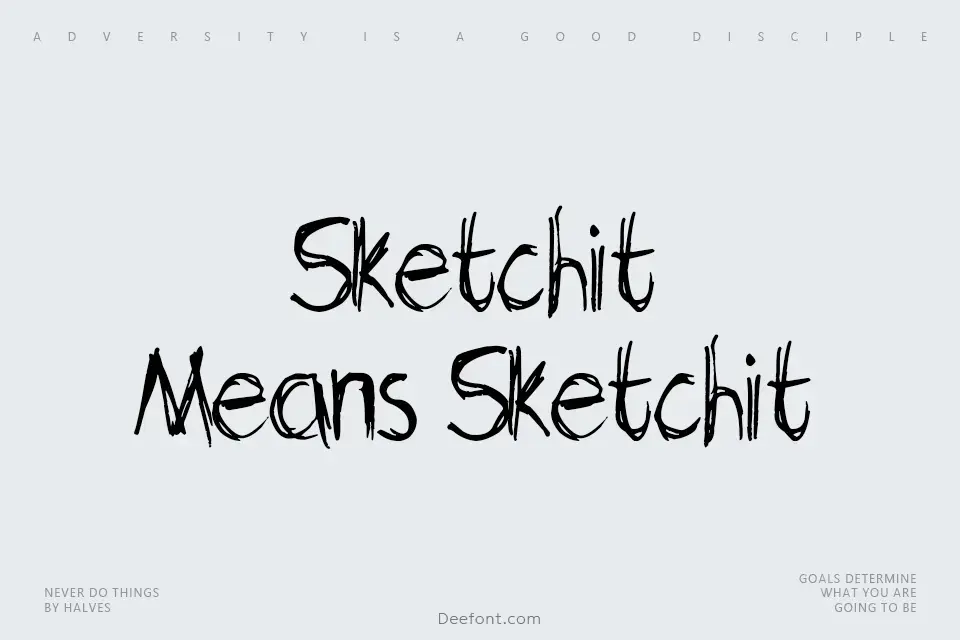
Sketchit Means Sketchit Font
Sketchit Means Sketchit is a distinctive hand-drawn display font that brings playful chaos and theatrical energy to your creative projects. With its deliberately uneven, sketch-like strokes and dramatic flourishes, this typeface excels as a title font for Halloween posters, horror movie promotions, and themed event materials. The irregular letterforms and rough aesthetic create instant visual impact, making it ideal for grabbing attention on promotional materials, event invitations, and poster designs. Perfect for designers seeking edgy, unconventional typography that balances sketch-art authenticity with readable display characteristics, this font transforms ordinary text into memorable, attention-grabbing headlines for entertainment and seasonal campaigns.